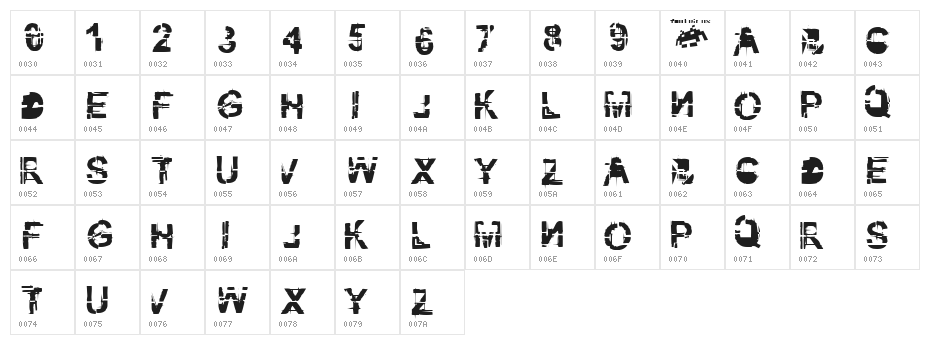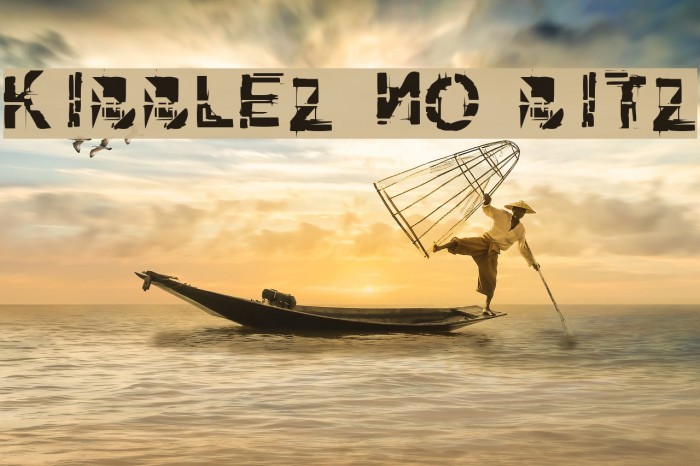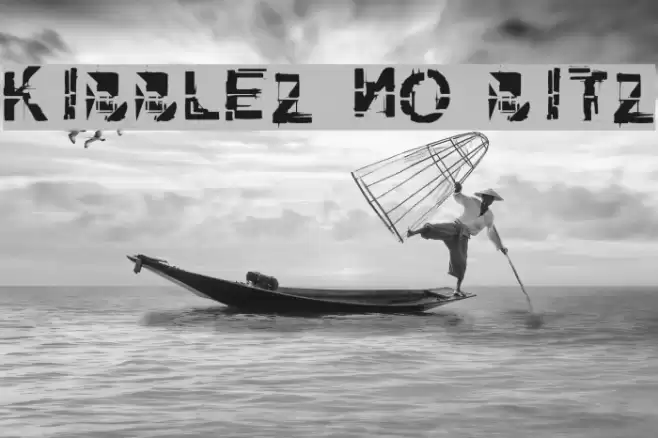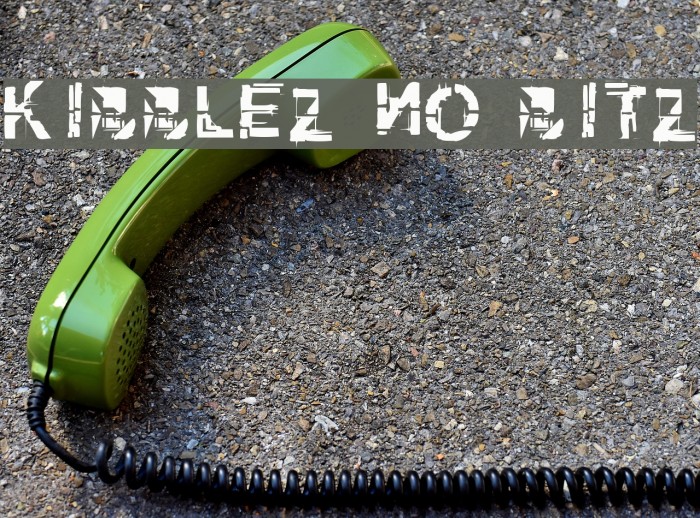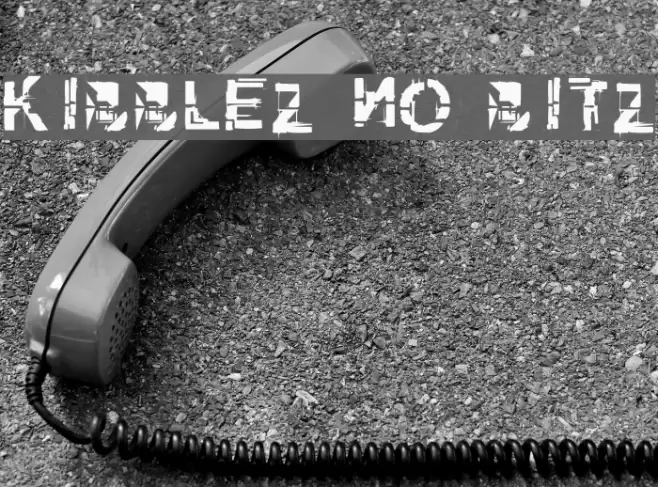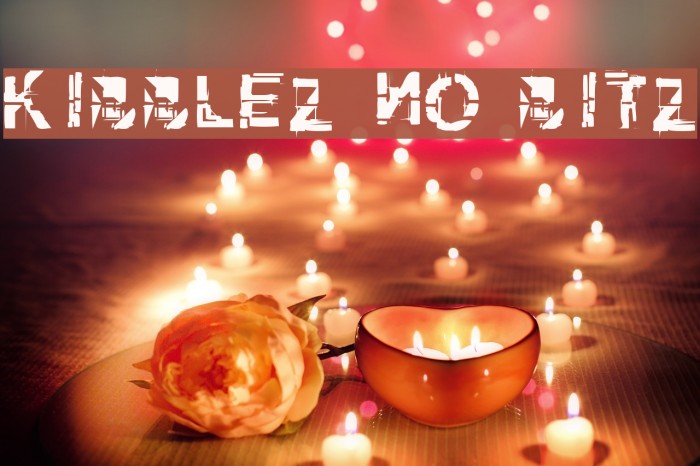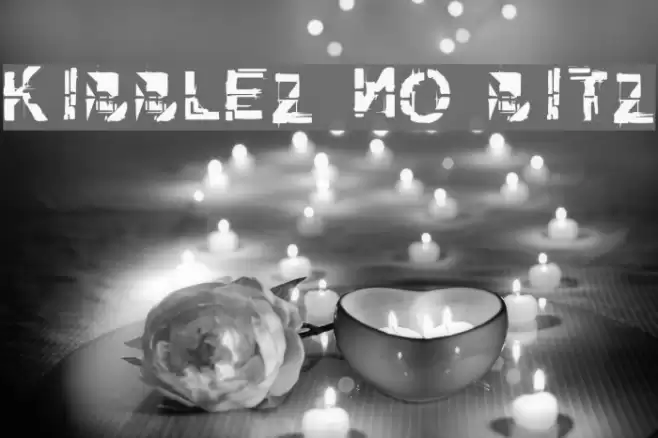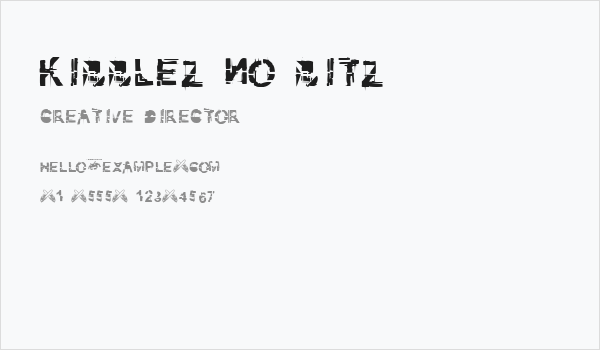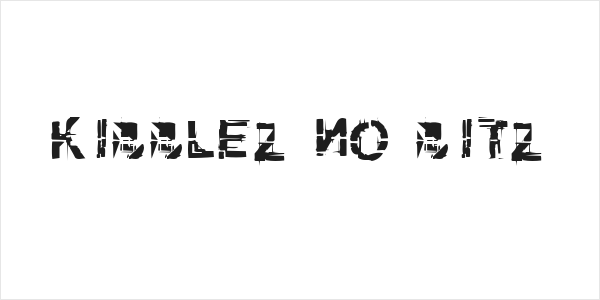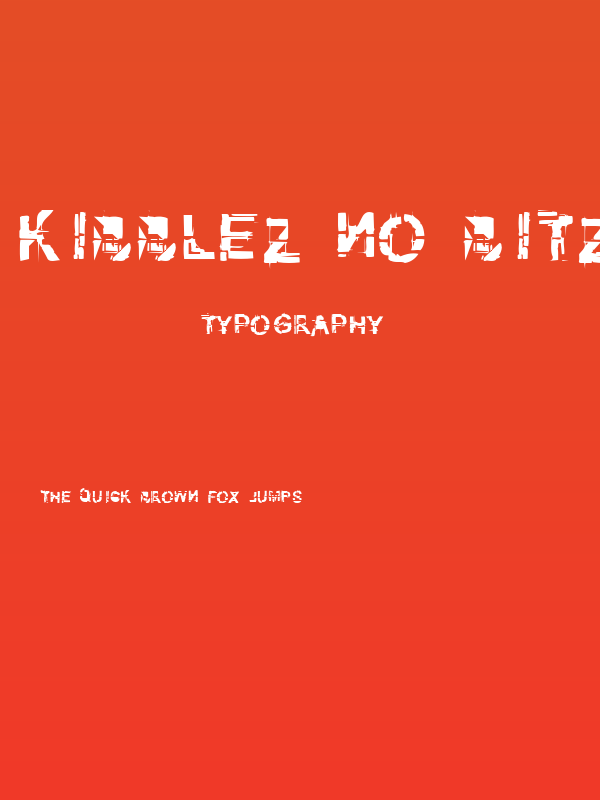
kibblez no bitz Font
kibblez no bitz Description
This font features a distressed, grunge aesthetic with a fragmented appearance. The characters are bold and heavily textured, giving them a rough, edgy look. The design includes irregular cuts and breaks within each letter, creating a chaotic yet visually striking effect. The font maintains a consistent width and weight throughout, with a high contrast between the thick and thin strokes. This style is reminiscent of urban street art or distressed print, making it ideal for projects that require a raw, unconventional look.
| Overall Style | Grunge, Urban, Edgy |
| Proposed Projects | Ideal for album covers, posters, streetwear branding, or any project needing an edgy, urban vibe. |